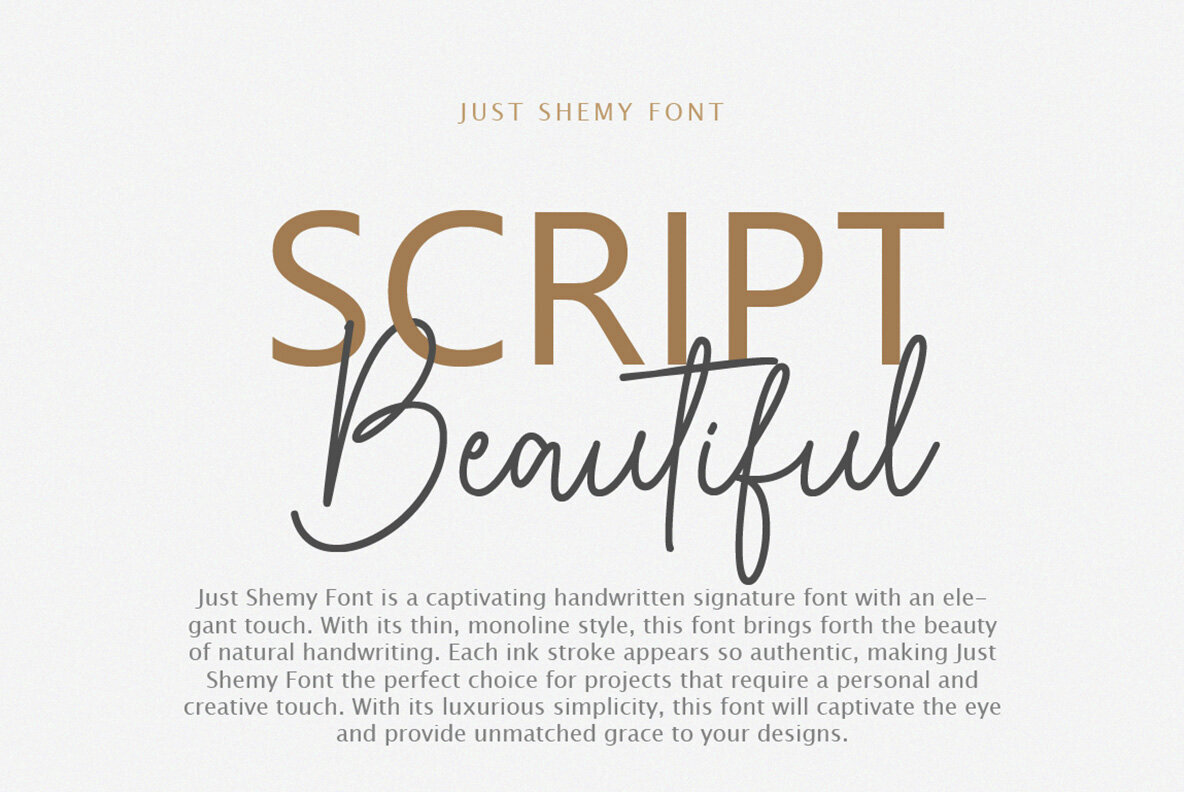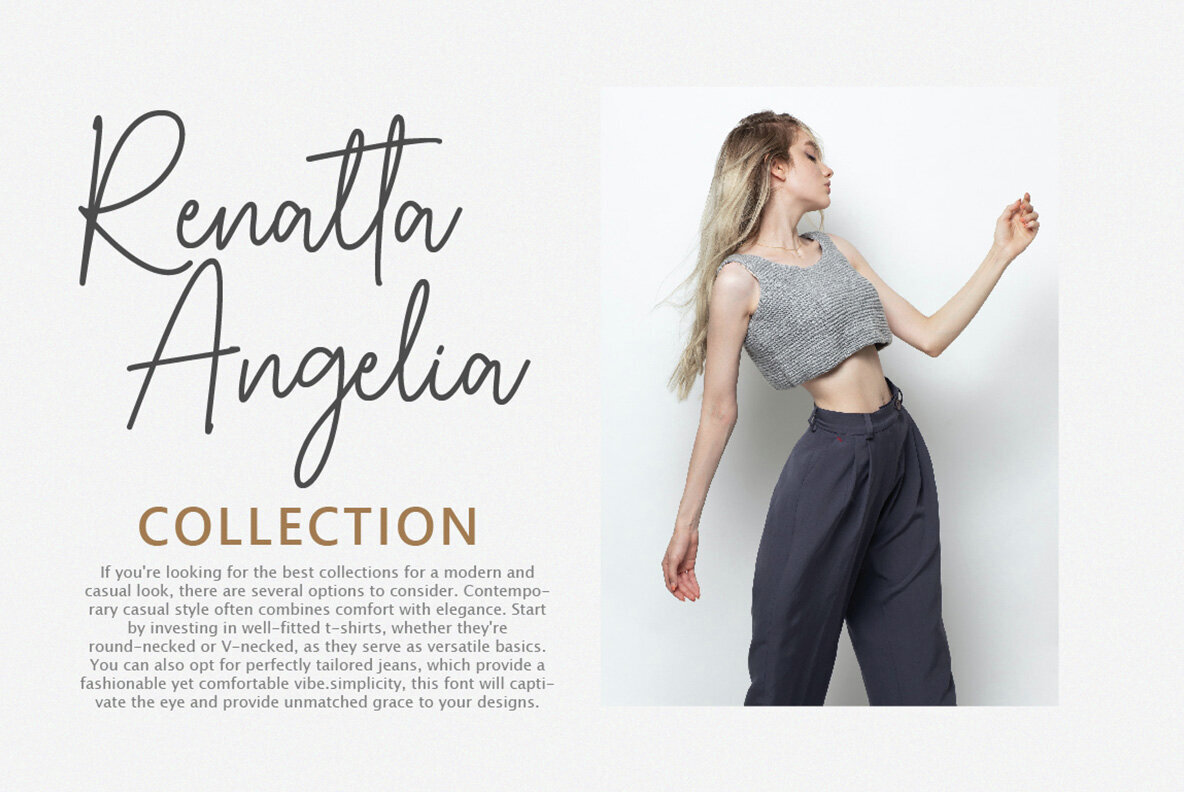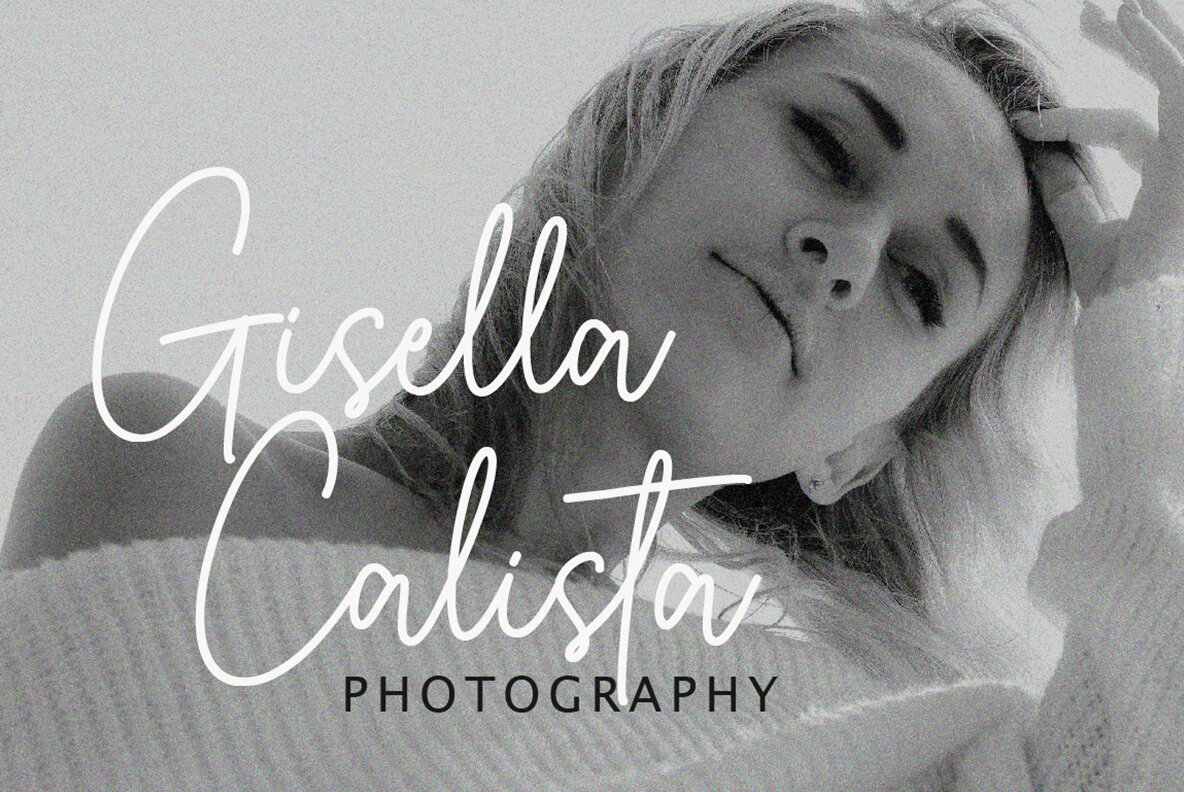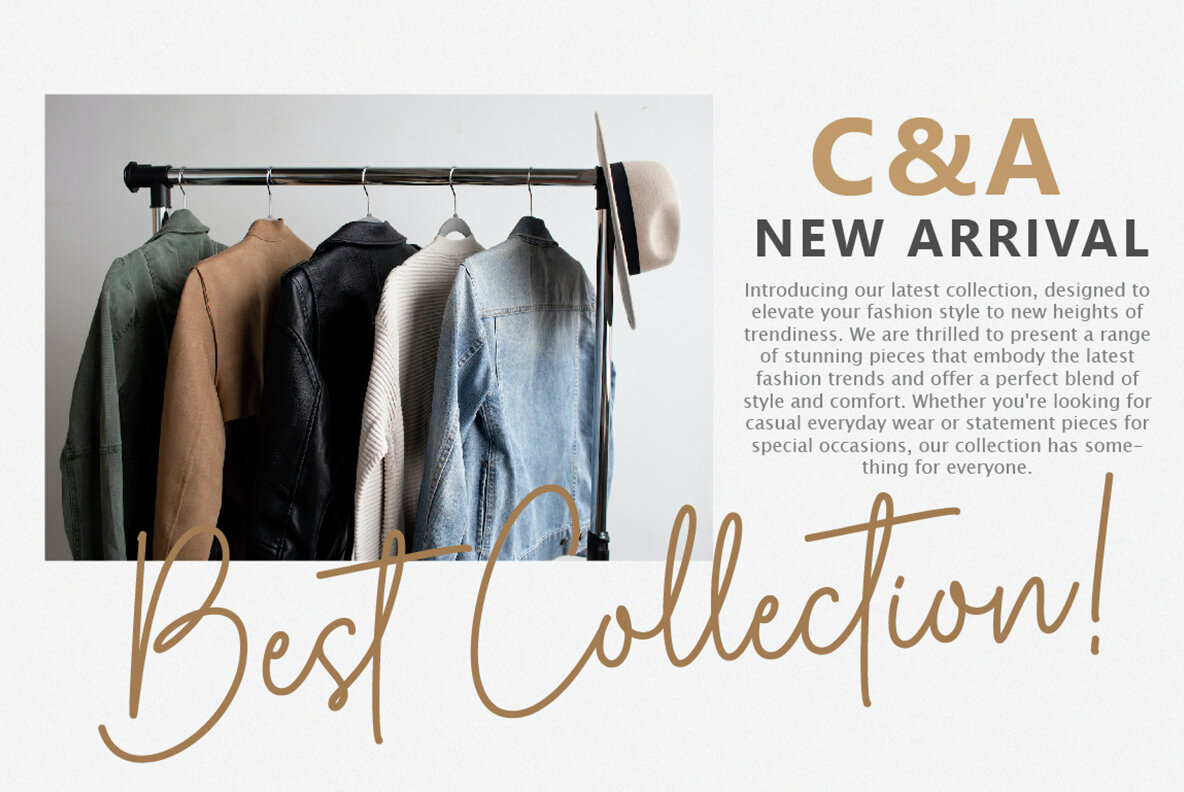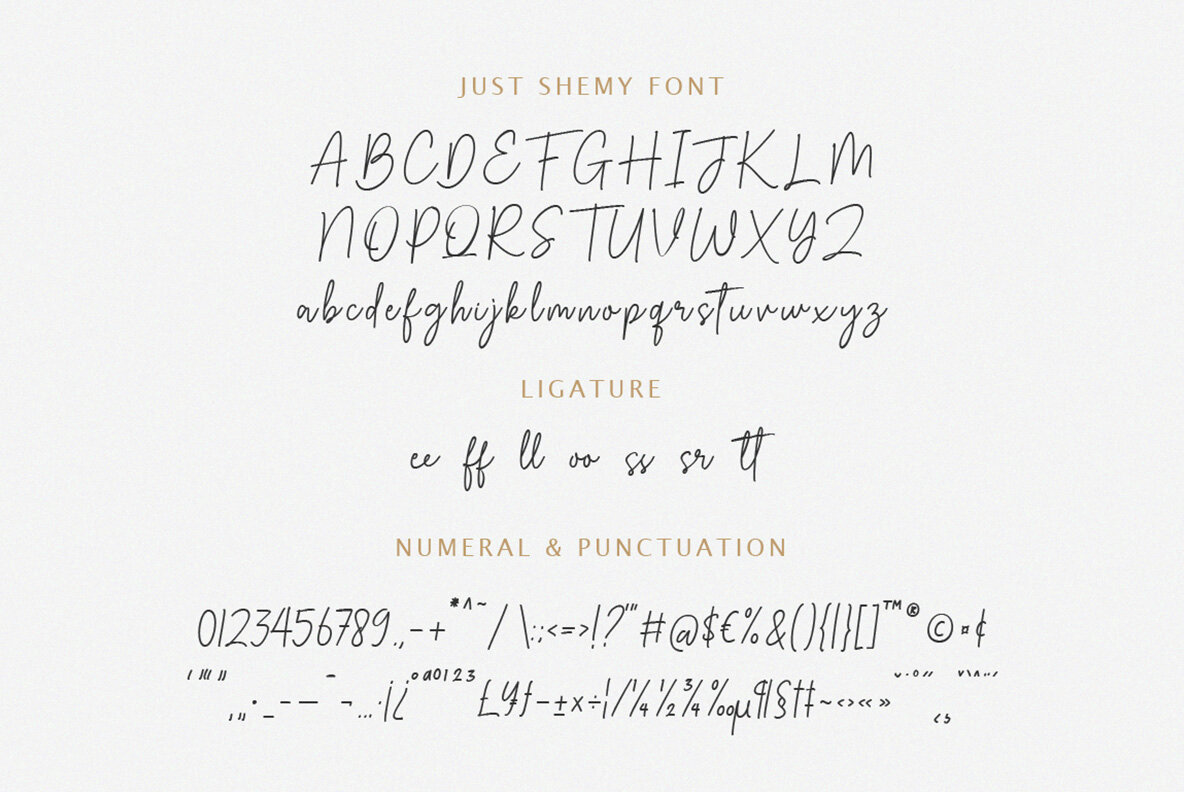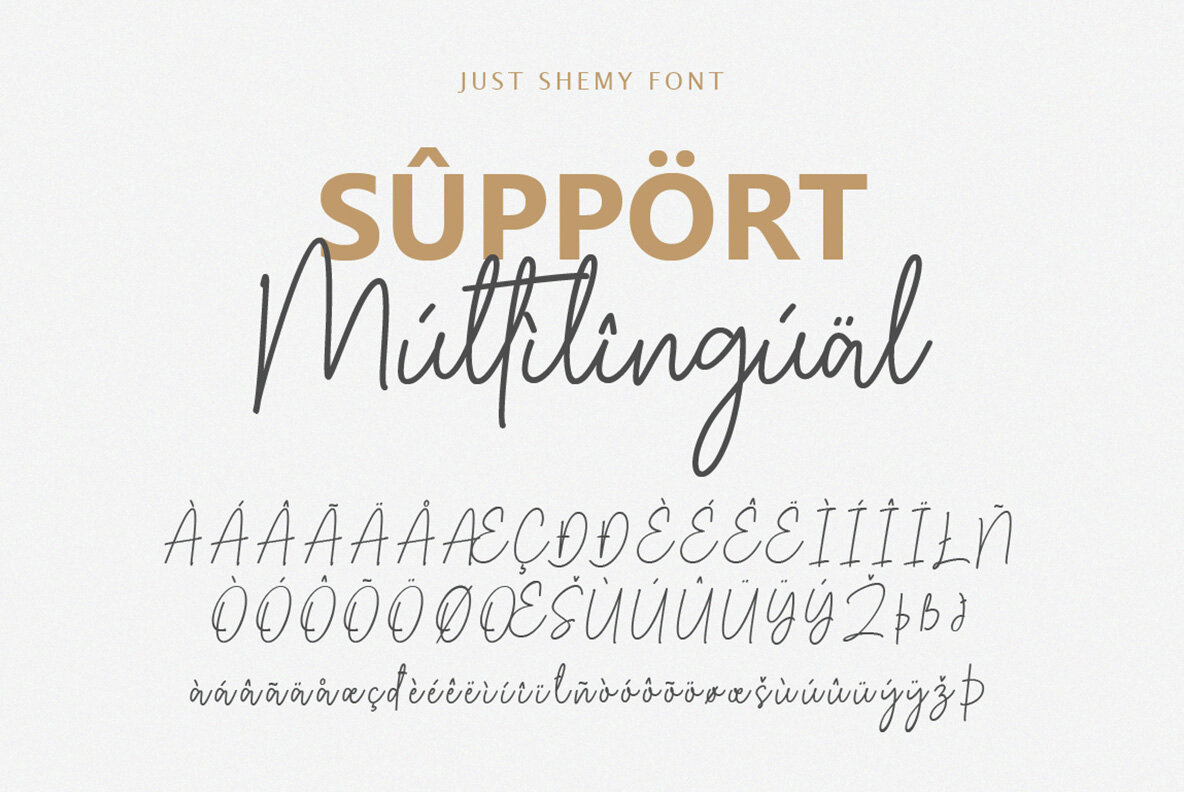
Just Shemy Font
Just Shemy Regular
Just Shemy is a captivating handwritten signature font imbued with an elegant touch. Crafted in a thin, monoline style, this font beautifully captures the essence of natural handwriting. Each ink stroke exudes authenticity, making Just Shemy an ideal choice for projects that crave a personal and creative flair. Its luxurious simplicity will not only captivate the eye but also bestow unmatched grace upon your designs.Just Shemy: An Elegant Handwritten Signature Font